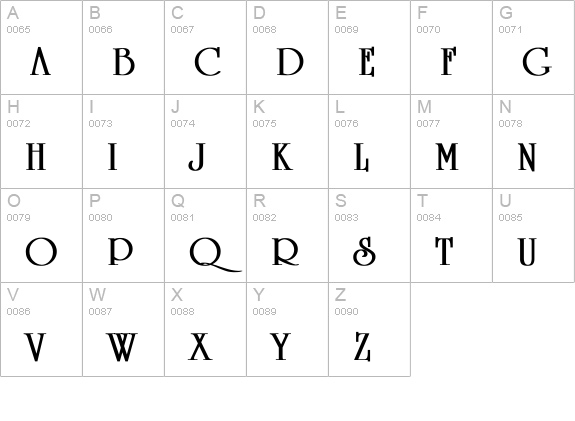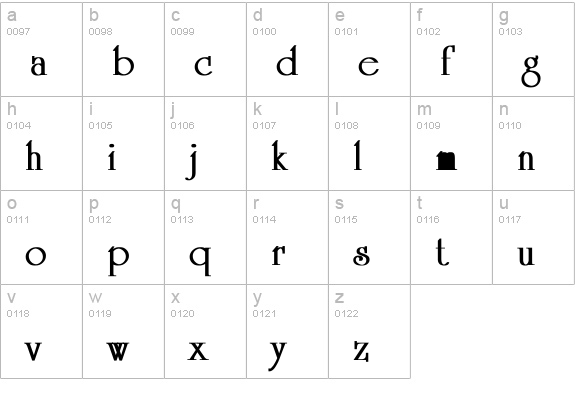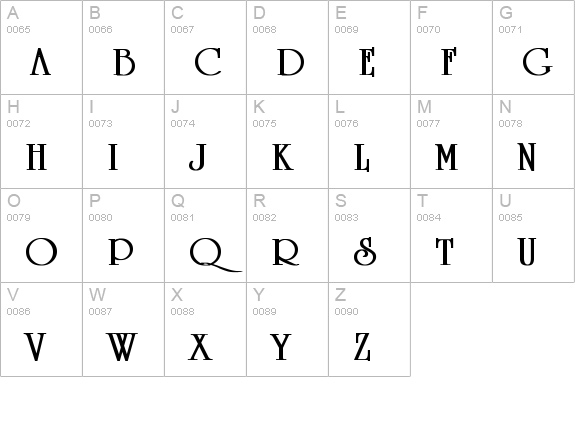
University Bold Font Details
University Bold is a strong, high-contrast variant in the University typeface family \xE2\x80\x94 well suited to headlines, attention-grabbing titles, and strong calls-to-action.
University Bold is a timeless and classic font that exudes confidence and strength. With its bold and imposing letterforms, it commands attention and makes a powerful statement. This versatile font is perfect for a wide range of design projects, including logos, headlines, posters, and more. One of the most appealing aspects of University Bold is that it is freely available to download at FontsMarket.com. This means that designers and creatives can enjoy the benefits of this exceptional font without any cost. Whether you are a student, a professional, or an enthusiast, having access to a high-quality font like University Bold can greatly enhance your creative endeavors. The clean and precise lines of University Bold make it highly legible, even at smaller sizes. Its bold weight ensures that your message is delivered with impact and clarity. The strong and commanding presence of this font is guaranteed to grab attention and leave a lasting impression. Whether you are designing a university brochure, a sports team logo, or a bold headline for a magazine, University Bold is the perfect choice. Its timeless and classic design will never go out of style, making it a reliable and versatile font for all your design needs. So why wait? Download University Bold for free at FontsMarket.com and unlock the potential of this exceptional font. Let your creativity soar and make a bold statement with University Bold.